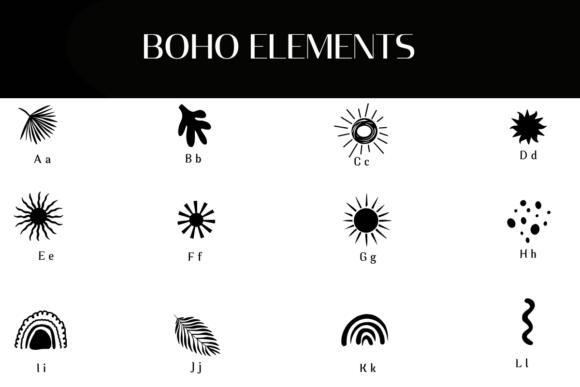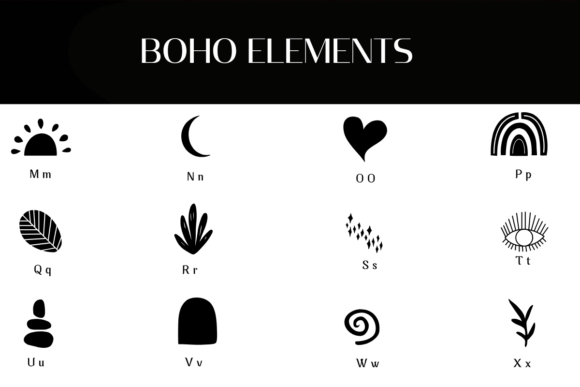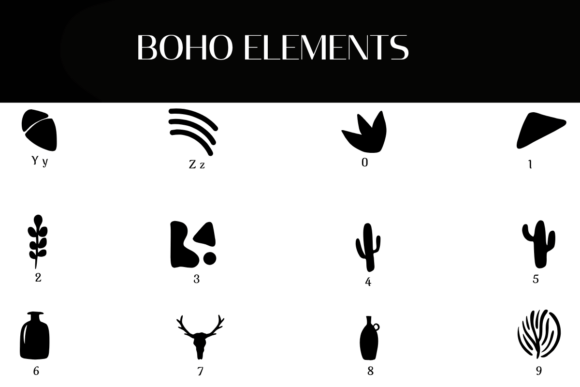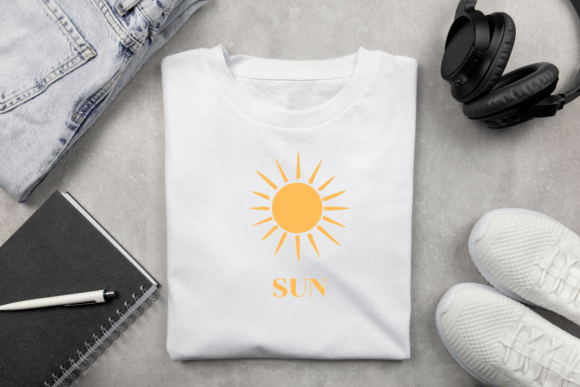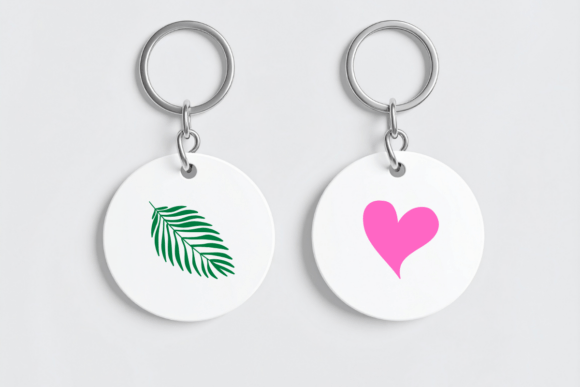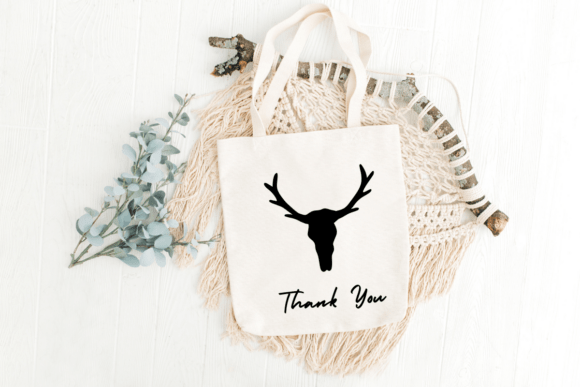
Introducing Boho Elements Font: The Perfect Dingbats Font for Creative Expression
Are you a designer, crafter, or writer looking for a unique and versatile font to elevate your creative projects? Look no further than Boho Elements Font, a stunning dingbats font that can add a touch of bohemian flair to any design. In this article, we’ll explore the features and uses of Boho Elements Font, and how it can become your go-to font for various creative endeavors.
What is Boho Elements Font?
Boho Elements Font is a dingbats font that features a collection of beautiful, bohemian-inspired symbols, illustrations, and icons. The font is designed to be highly versatile and can be used for a wide range of creative projects, from personal to commercial. With its eclectic mix of elements, Boho Elements Font is perfect for adding a touch of personality and whimsy to your designs.
Uses of Boho Elements Font
So, what can you use Boho Elements Font for? The possibilities are endless! Here are some ideas to get you started:
- Journaling and note-taking: Add a touch of bohemian flair to your journal pages, notes, and to-do lists.
- Diary writing: Make your diary entries more visually appealing with Boho Elements Font’s decorative symbols and illustrations.
- Greeting cards: Create beautiful, one-of-a-kind greeting cards for special occasions like birthdays, weddings, and holidays.
- Banners and signs: Use Boho Elements Font to create eye-catching banners and signs for parties, events, or promotions.
- Social media posts: Add a touch of personality to your social media posts, stories, and reels with Boho Elements Font’s decorative elements.
- Mugs and water bottles: Design unique and functional items like mugs and water bottles with Boho Elements Font.
- T-shirts and apparel: Create stunning designs for t-shirts, hoodies, and other apparel items.
- Stationery and paper crafts: Use Boho Elements Font to create beautiful stationery, paper crafts, and other paper goods.
Why Choose Boho Elements Font?
So, why should you choose Boho Elements Font for your creative projects? Here are just a few reasons:
- Unique and versatile: Boho Elements Font offers a unique and versatile set of symbols, illustrations, and icons that can be used in a wide range of creative projects.
- Easily readable: Despite its decorative nature, Boho Elements Font is easily readable, making it perfect for use in journals, diaries, and other written content.
- Scalable: Boho Elements Font is highly scalable, meaning it can be used in various sizes and resolutions without losing its quality.
Tips for Using Boho Elements Font
Here are some tips for getting the most out of Boho Elements Font:
- Experiment with different sizes and colors: Play around with different sizes and colors to find the perfect combination for your design.
- Mix and match elements: Combine different Boho Elements Font symbols, illustrations, and icons to create unique and interesting designs.
- Use it with other fonts: Pair Boho Elements Font with other fonts to create visually appealing and dynamic designs.
- Don’t be afraid to get creative: Boho Elements Font is all about creative expression, so don’t be afraid to try new and innovative things!